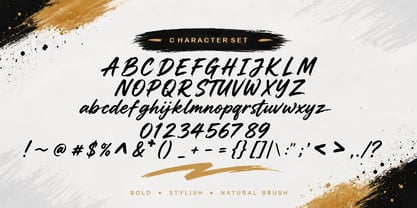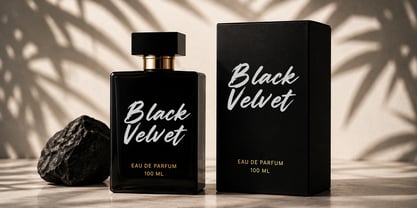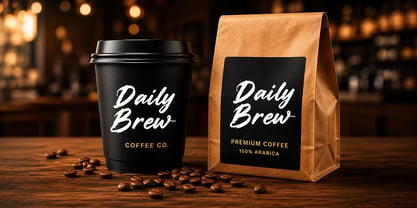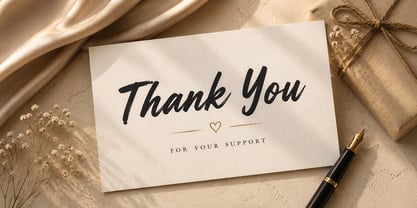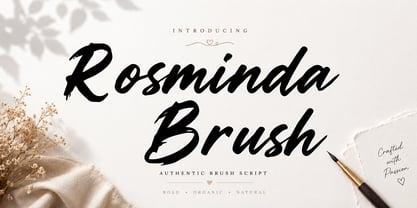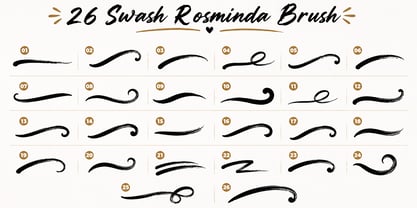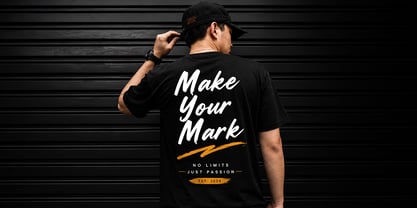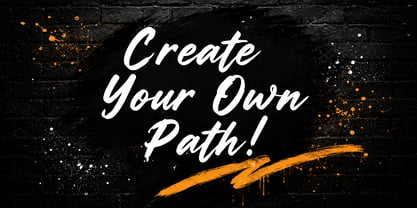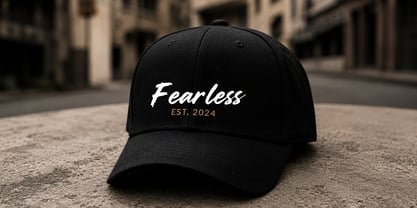
Rosminda Brush
by Shape Studio
The Rosminda Brush Font Family was designed by Teuku Saifullah and published by Shape Studio. Rosminda Brush contains 3 styles and family package options. More about this family
Rosminda Brush is a bold and authentic brush script font inspired by natural hand-painted strokes. Featuring expressive curves, organic textures, and smooth flowing characters, this font brings warmth, personality, and creativity to every design.
Designed to stand out, Rosminda Brush is perfect for branding, logos, product packaging, fashion labels, social media graphics, posters, book covers, apparel, quotes, invitations, greeting cards, and wedding stationery. Its handcrafted style delivers a modern yet timeless look that works beautifully for both personal and commercial projects.
Whether you're creating a bold brand identity or adding a handcrafted touch to your artwork, Rosminda Brush offers the perfect balance of elegance, energy, and natural brush expression.
Features:
• Uppercase & Lowercase
• Numbers & Punctuation
• Multilingual Support
• Stylistic Alternates
• Ligatures
Perfect for:
• Logo Design
• Branding Projects
• Product Packaging
• Wedding Invitations
• Fashion & Beauty
• Social Media Posts
• Book Covers
• Posters
• Merchandise
• Creative Crafts
Bring your ideas to life with Rosminda Brush—a bold handwritten script crafted to make every project feel unique, expressive, and memorable.
Designers: Teuku Saifullah
Foundry: Shape Studio